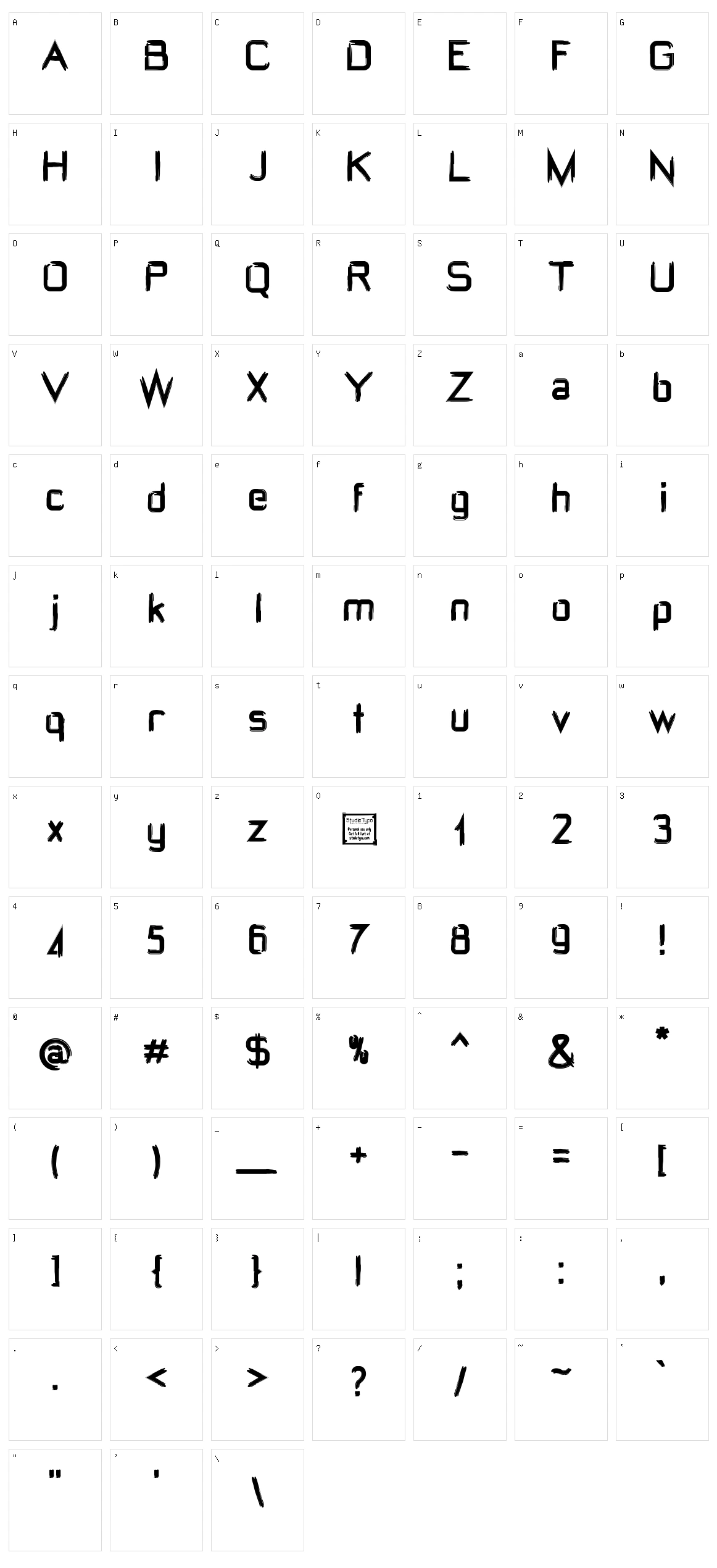
The free font W@rdoom is carefully designed by Studio Typo, showcasing a thoughtful balance of creativity and usability and falls under the Eroded font style. When you download the ZIP file, it contains only 1108.73 KB of font files, making it lightweight and quick to download. Please review the license details below to understand permitted usage and distribution rights. If license information is not available, we recommend using this font for personal projects only or contacting the author directly for commercial usage permissions.